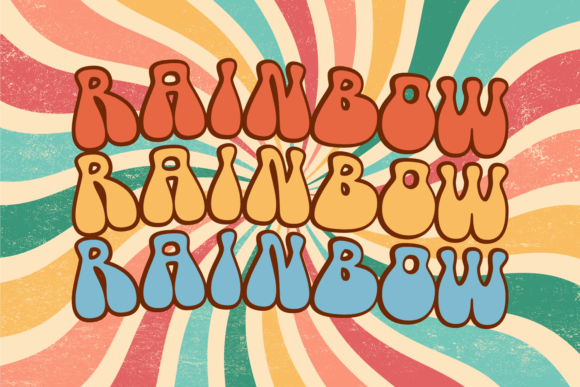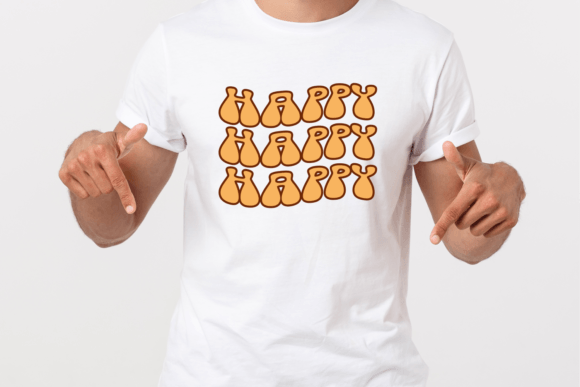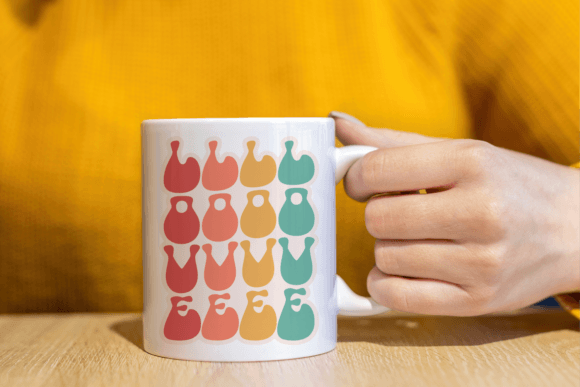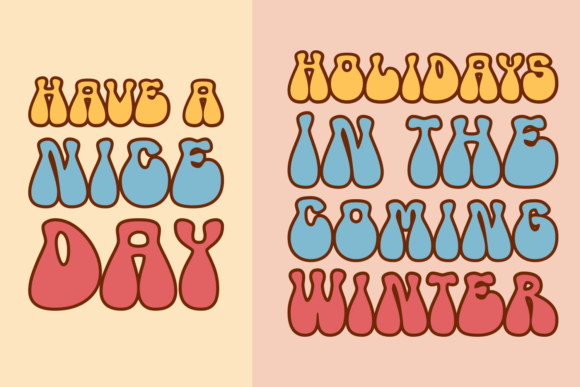
Dream Retro Font: The Perfect Choice for Bold and Eye-Catching Typography
Are you tired of using the same old fonts for your designs? Do you want to stand out from the crowd and create something truly unique? Look no further than the Dream Retro Font! This cute and chubby display font is perfect for creating bold and eye-catching typography that will grab attention and leave a lasting impression.
What is Dream Retro Font?
Dream Retro Font is a unique and captivating font that is perfect for designers and crafters who want to add a touch of personality to their work. This font is characterized by its chubby and playful letters, which give it a fun and retro feel. It’s the perfect choice for creating headlines, titles, and other typography that needs to stand out.
Features of Dream Retro Font
Dream Retro Font has several features that make it a great choice for designers and crafters. Some of its key features include:
- Unique and captivating design: The Dream Retro Font has a unique and captivating design that will grab attention and leave a lasting impression.
- Cute and chubby letters: The font’s chubby and playful letters give it a fun and retro feel that’s perfect for creating bold and eye-catching typography.
- Perfect for headlines and titles: The Dream Retro Font is perfect for creating headlines, titles, and other typography that needs to stand out.
- Suitable for various design projects: This font is suitable for various design projects, including craft products, apparel, kids’ t-shirts, signage, and more.
Uses of Dream Retro Font
Dream Retro Font is a versatile font that can be used for a variety of design projects. Some of the most popular uses for this font include:
- Headlines and titles: The Dream Retro Font is perfect for creating bold and eye-catching headlines and titles.
- Craft products: This font is great for creating labels, packaging, and other typography for craft products.
- Apparel: The Dream Retro Font is perfect for creating bold and eye-catching typography for t-shirts, hoodies, and other apparel.
- Kids’ t-shirts: This font is great for creating fun and playful typography for kids’ t-shirts.
- Signage: The Dream Retro Font is perfect for creating eye-catching signage for businesses, events, and more.
Why Choose Dream Retro Font?
There are many reasons why you should choose the Dream Retro Font for your design projects. Some of the top reasons include:
- Unique design: The Dream Retro Font has a unique and captivating design that will help you stand out from the crowd.
- Versatile: The Dream Retro Font is a versatile font that can be used for a variety of design projects.
- Perfect for designers and crafters: This font is perfect for designers and crafters who want to add a touch of personality to their work.